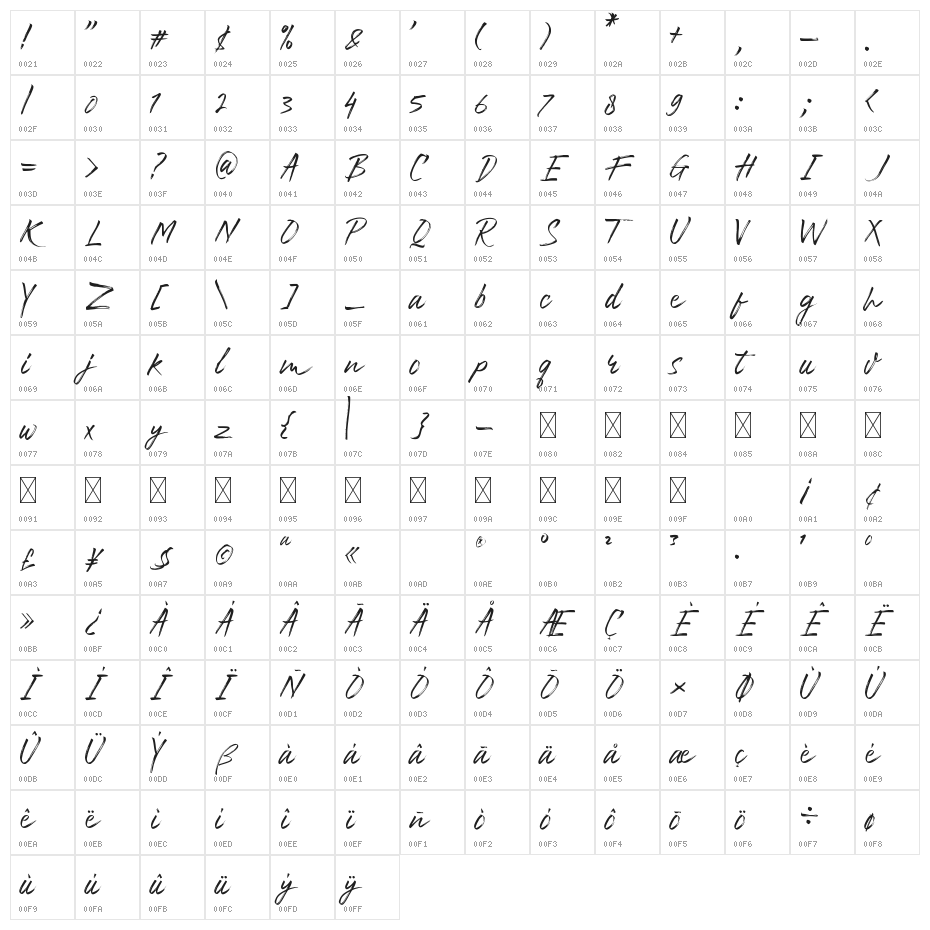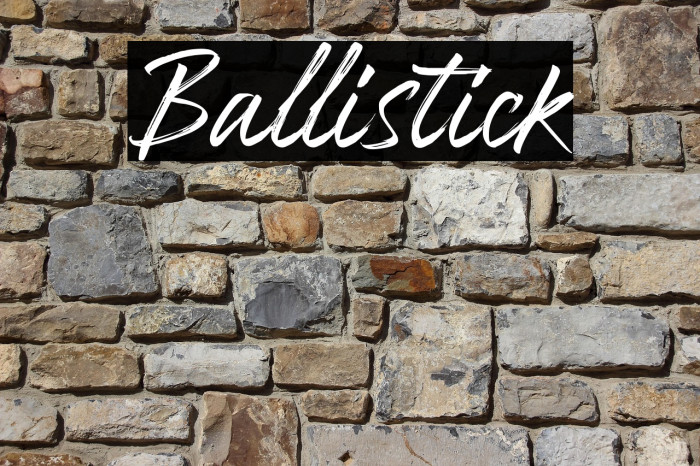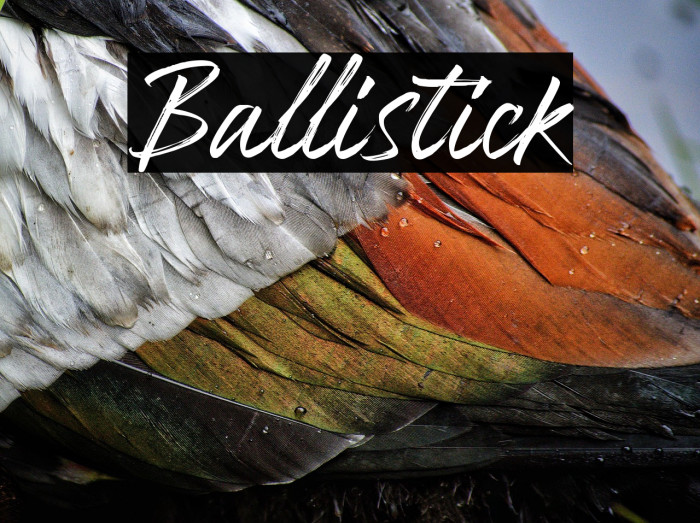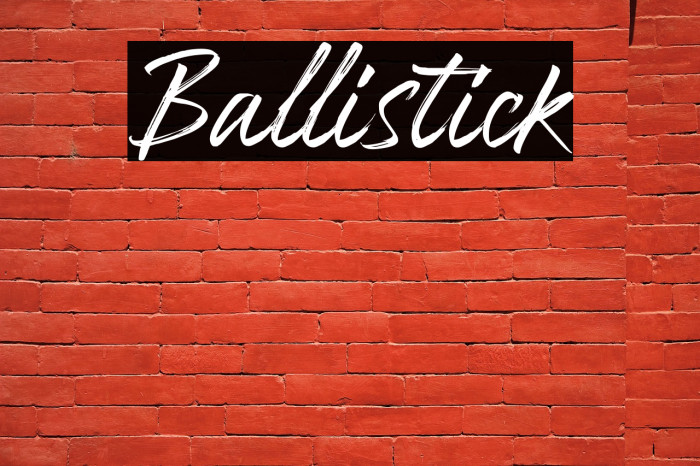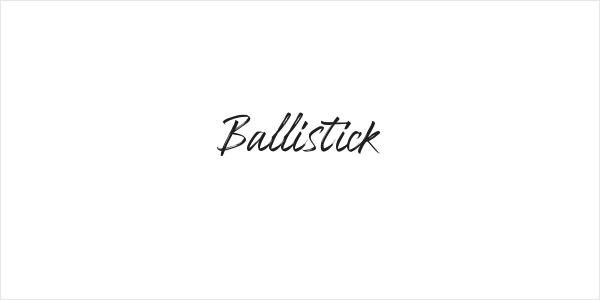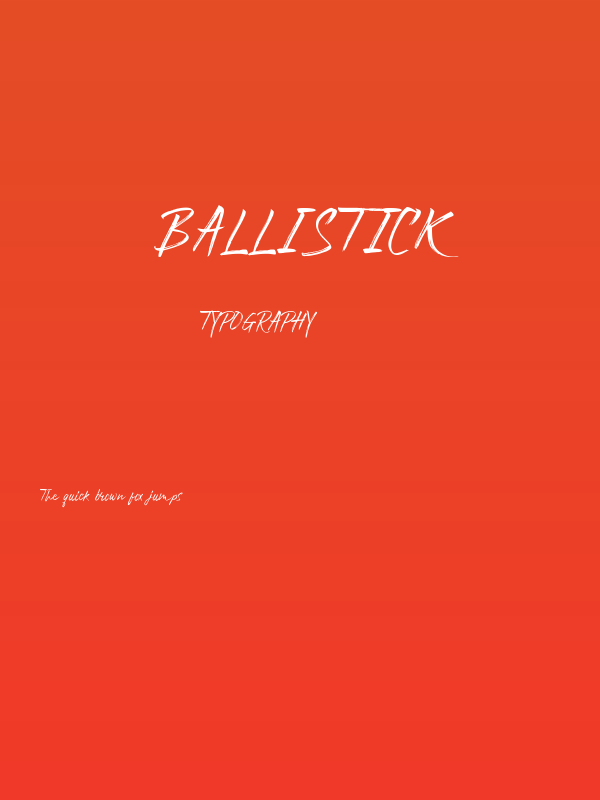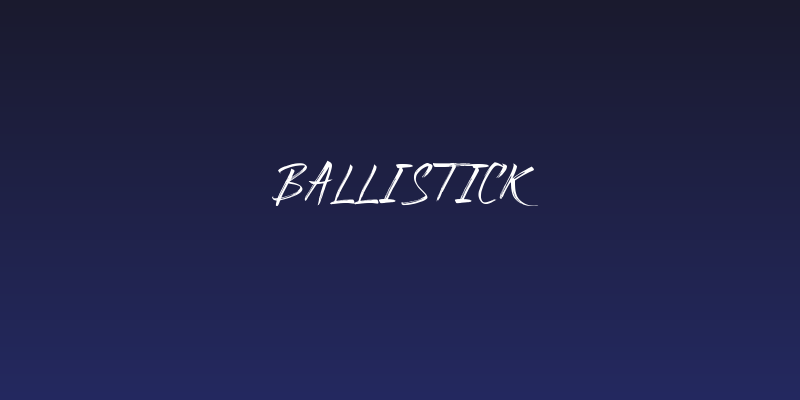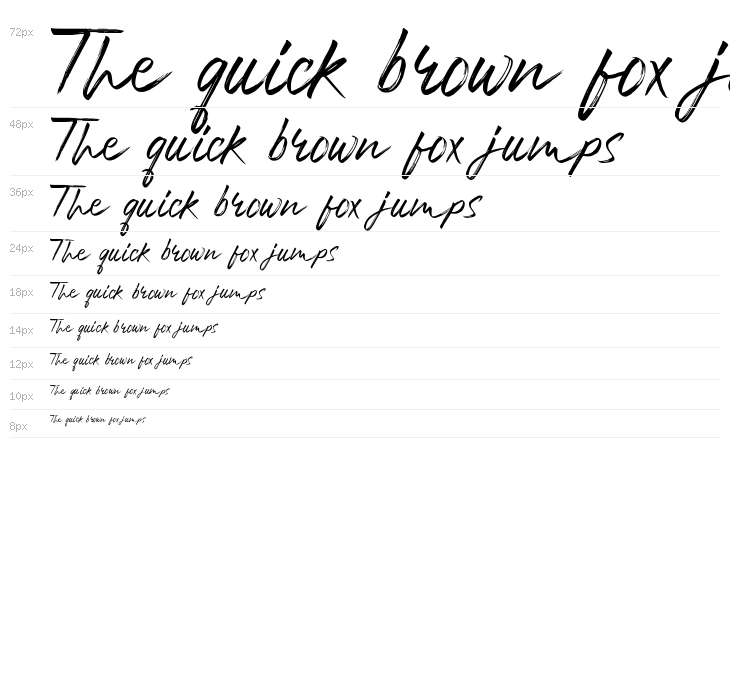
Ballistick Font
Ballistick Description
This font exhibits a dynamic and expressive style, characterized by its brush-like strokes that convey a sense of motion and energy. The letters are slightly slanted, enhancing the fluidity and giving it a handwritten appearance. The uppercase and lowercase letters maintain a consistent style, with varying stroke thickness that adds a lively contrast. The numbers and special characters follow the same energetic design, making the font versatile for creative projects. Its unique style is suitable for designs that require a personal and artistic touch.
| Use Case | Logos, Headlines, Artistic designs |
| Proposed Projects | Ideal for branding, posters, invitations, and any project that benefits from a personal, artistic touch. |